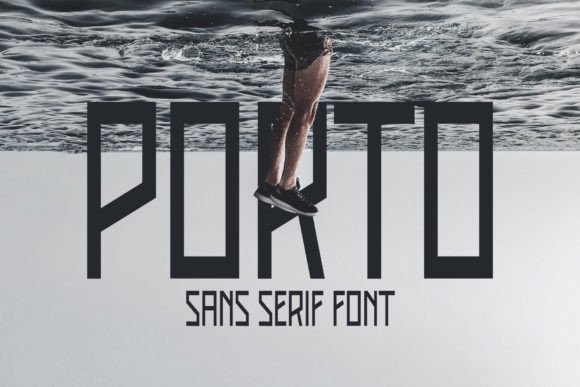
Behold, Porto – a sans serif typeface that beckons you to dive into the realm of art and innovation. With its sleek, slender frame and a hint of futuristic flair, Porto is not just letters on a screen, but an invitation to unlock your creativity and forge a visual masterpiece. This isn't just a font; it's a portal to a world where your ideas take shape, where words dance off the page with grace and allure.
Step into the realm of logo design with Porto, and witness how your brand identity transforms. The sharp edges and meticulously crafted curves lend a touch of sophistication, ensuring your logo captures attention and leaves a lasting impression. Elevate your magazine layouts with Porto, and watch as your words take flight, captivating readers with their newfound elegance.
Social media has never looked so chic. Share your thoughts, ideas, and creations with the world, using Porto as your artistic muse. Whether it's a captivating post, an intriguing tweet, or a visually stunning Instagram story, Porto adds a touch of digital artistry that sets you apart.
For those who conjure worlds on paper, Porto opens the door to a realm of boundless creativity. Design brochures that allure and engage, leaving a trail of fascination in their wake. The clean lines and subtle nuances of Porto bring a sense of order to your layouts, while its inherent vibrancy injects a spark of energy into every design.
Porto is a font that speaks volumes, even in silence. Its presence commands attention, its design captivating and spellbinding. Like a master conductor, it orchestrates harmony between form and function, guiding your words and concepts towards a stunning crescendo.
Porto is more than a font. It's an expression of your individuality, a reflection of your artistic vision. It's the gateway to a world where creativity reigns supreme and innovation knows no bounds. Embrace Porto, and let your imagination soar.